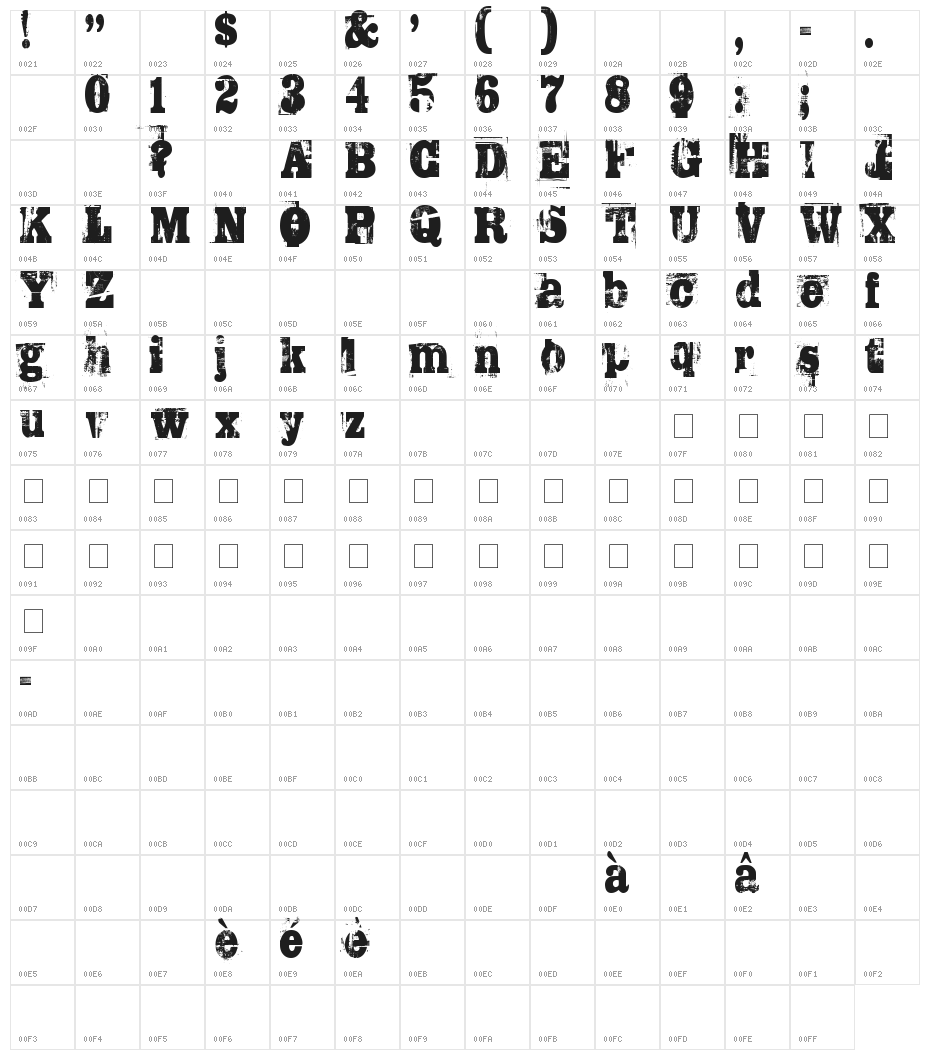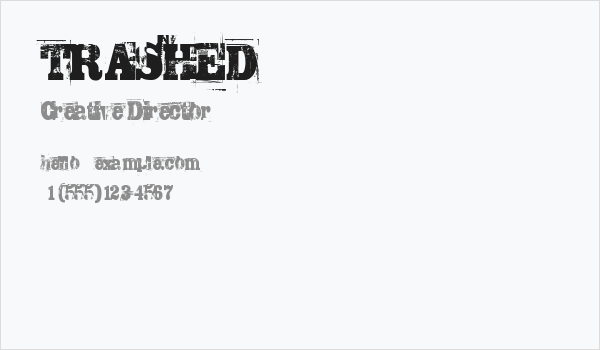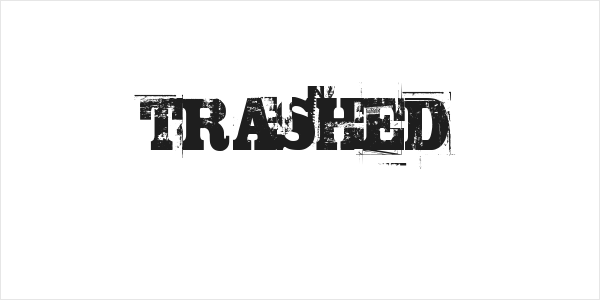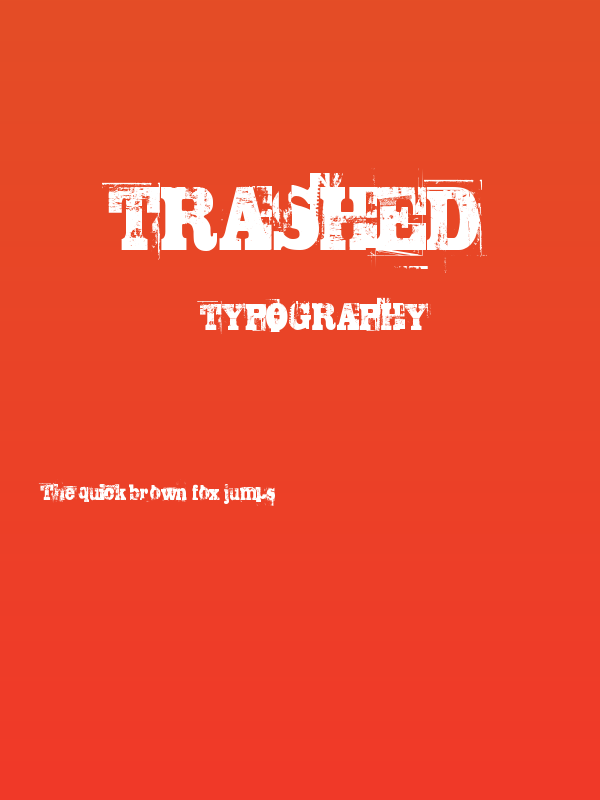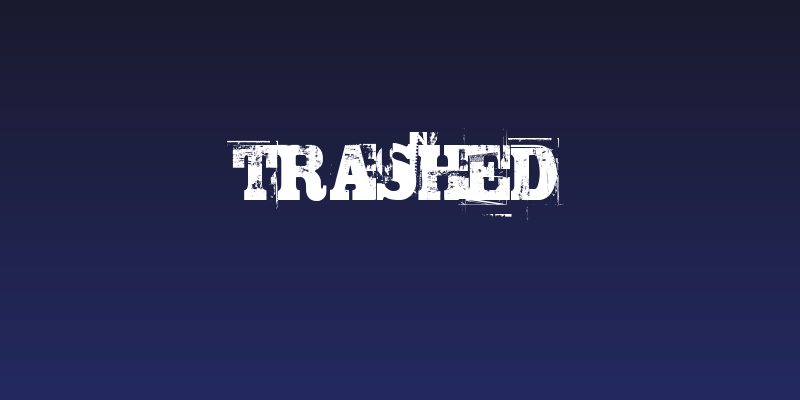
TRASHED Font
TRASHED Description
This font features a bold, distressed style with a grunge texture that gives it a worn, rugged appearance. The characters are thick and heavy, with a slab serif design that adds a sense of strength and impact. The distressed effect varies across each letter, creating a unique and dynamic look. This font is ideal for projects that require a bold statement or an edgy, urban aesthetic. The uppercase and lowercase letters maintain a consistent style, while the numbers and special characters are equally bold and textured.
| Proposed Projects | Ideal for posters, album covers, streetwear branding, and any design needing a gritty, urban feel. |